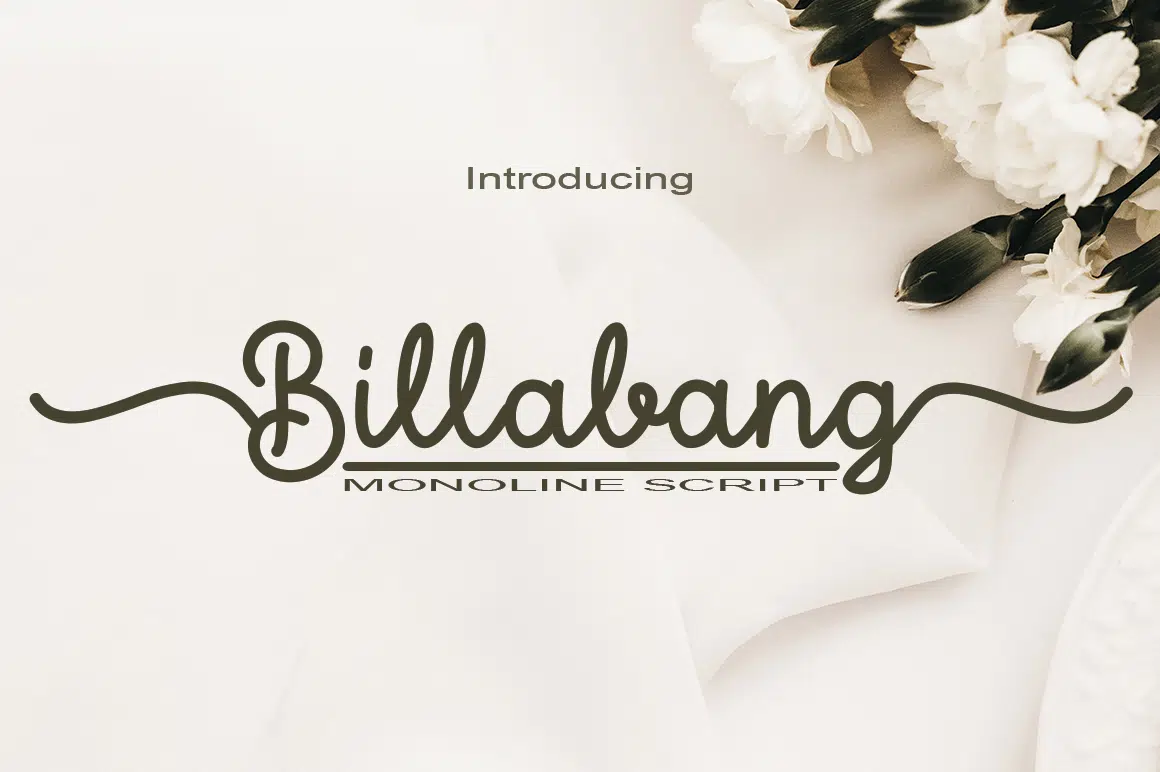
Billabang Font
Billabang Font is perfect for surf shop branding, beach resort signage, outdoor adventure logos, coastal restaurant menus, vacation rental materials, tropical product packaging, summer festival posters, skateboard graphics, lifestyle apparel designs, beach club promotions, travel agency advertisements, and laid-back cafe identities.
What makes Billabang Font exciting is its effortless cool that captures the relaxed spirit of beach culture and outdoor lifestyle through flowing letterforms and casual elegance. This distinctive typeface embodies the freedom and authenticity of coastal living, combining laid-back charm with contemporary style that resonates with adventure-seeking audiences. The font's organic character and natural flow create an immediate sense of relaxation and escape while maintaining the visual strength needed for effective brand communication. Its versatile personality works equally well for premium surf brands and casual beachside businesses, making it perfect for any project that needs to communicate authenticity and outdoor lifestyle values.
The Billabang Font family includes regular, medium, and bold weights, featuring stylistic alternates, flowing ligatures, and casual variations. The character set incorporates surf-inspired symbols, laid-back numerals, and relaxed punctuation marks that enhance the font's coastal character and provide designers with comprehensive lifestyle branding options.
Whether you're developing surf and beach brands, creating outdoor adventure campaigns, or designing coastal hospitality materials, Billabang Font Free Download provides the authentic cool your lifestyle projects require. This premium typeface excels in applications where authenticity and lifestyle appeal are essential for connecting with outdoor enthusiasts and beach culture audiences. The font's relaxed qualities work magnificently across digital platforms and print applications, making it an invaluable asset for designers targeting active lifestyle markets. Surf brands and adventure companies choose this font for its ability to communicate authenticity while maintaining professional appeal and market credibility. The comprehensive character set supports multiple languages, expanding its versatility for international surf and adventure brand applications. Professional designers appreciate its perfect balance of casual style and commercial viability, ensuring brands remain both approachable and professionally competitive. When you implement this exceptional typeface in your lifestyle communications, you're selecting a typography solution that celebrates outdoor culture and authentic living, ensuring your brand connects with audiences seeking adventure, freedom, and genuine experiences in today's increasingly urbanized world while maintaining the cool credibility essential for success in competitive lifestyle markets.